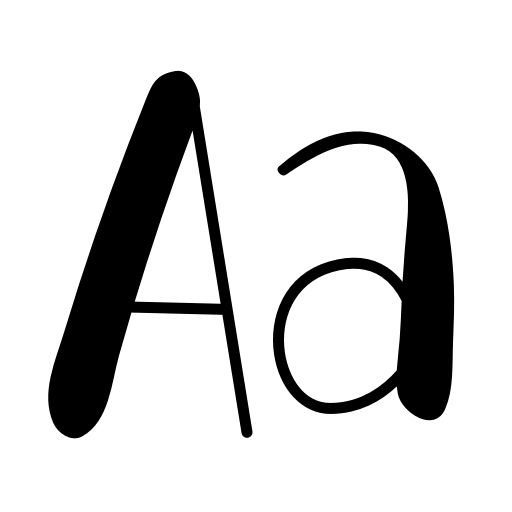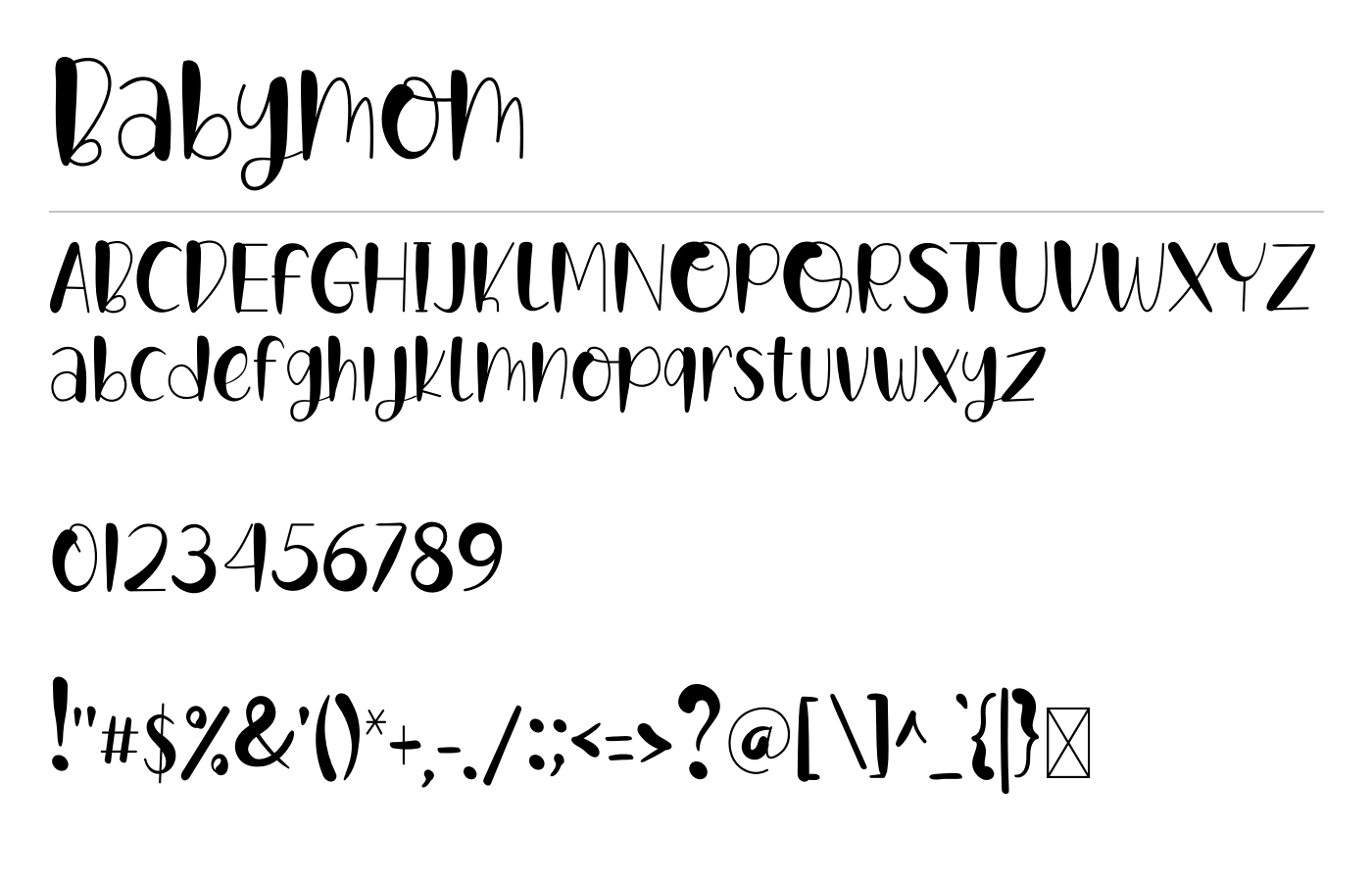
Babymom is a playful and whimsical script font with a hand-drawn, casual feel. Its tall, narrow letterforms feature lively strokes that vary between thick and thin, giving it a friendly and charming personality perfect for projects aimed at children, casual branding, or informal invitations. This font works well in headlines and logos where a cheerful, approachable style is desired.
Babymom Font
About Babymom Font